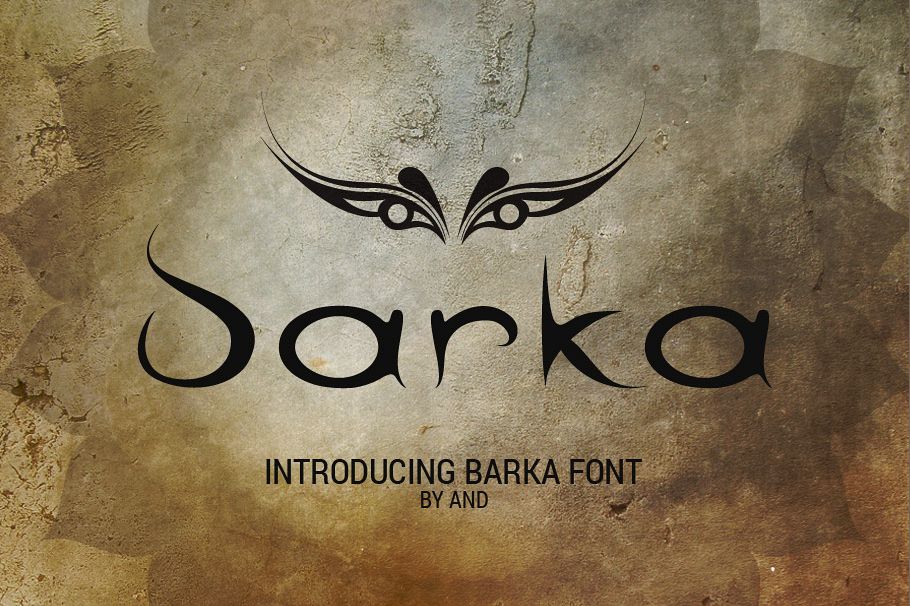
Barka font
Barka is an unusual and creatively crafted handwritten font, both curly and bubbly. Barka font will help you to create a unique and stylish signature look for your project. It's good for brand identity.